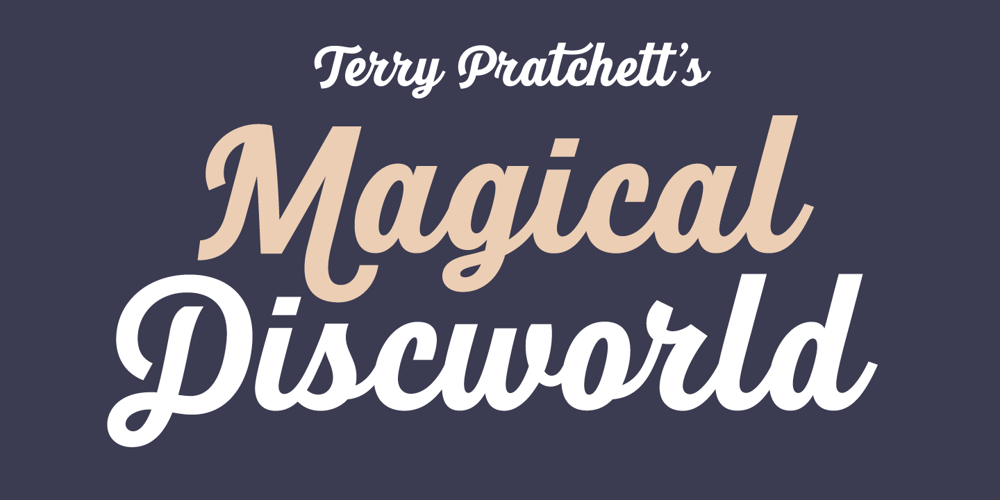
Fits Font Family was designed by Veneta Rangelova and published by DearType. Fits contains 7 styles and family package options. Fits is a modern version of the versatile vintage style script. It’s clean, legible and easy to use. Fits was meant to be used as an everyday workhorse font, thus its uses are endless – from websites and signage to merchandise and editorial designs. It looks great on product packaging and menus, being easily readable from afar. It has some initial forms and ligatures, as well as fancier alternates for the capital letters (in case you want to spice things up a bit). Unlike its predecessor, BeachBar, Fits has more basic letter shapes which makes it the perfect script for most day-to-day design applications – think apps, websites, merchandise, posters and cards, blog titles, t-shirts, branding and animation projects, etc. As promised, Fits comes in seven weights for a different impact and with a neat set of Cyrillic letters. All in all, Fits is a simple and workable script that will fit most design tasks perfectly.